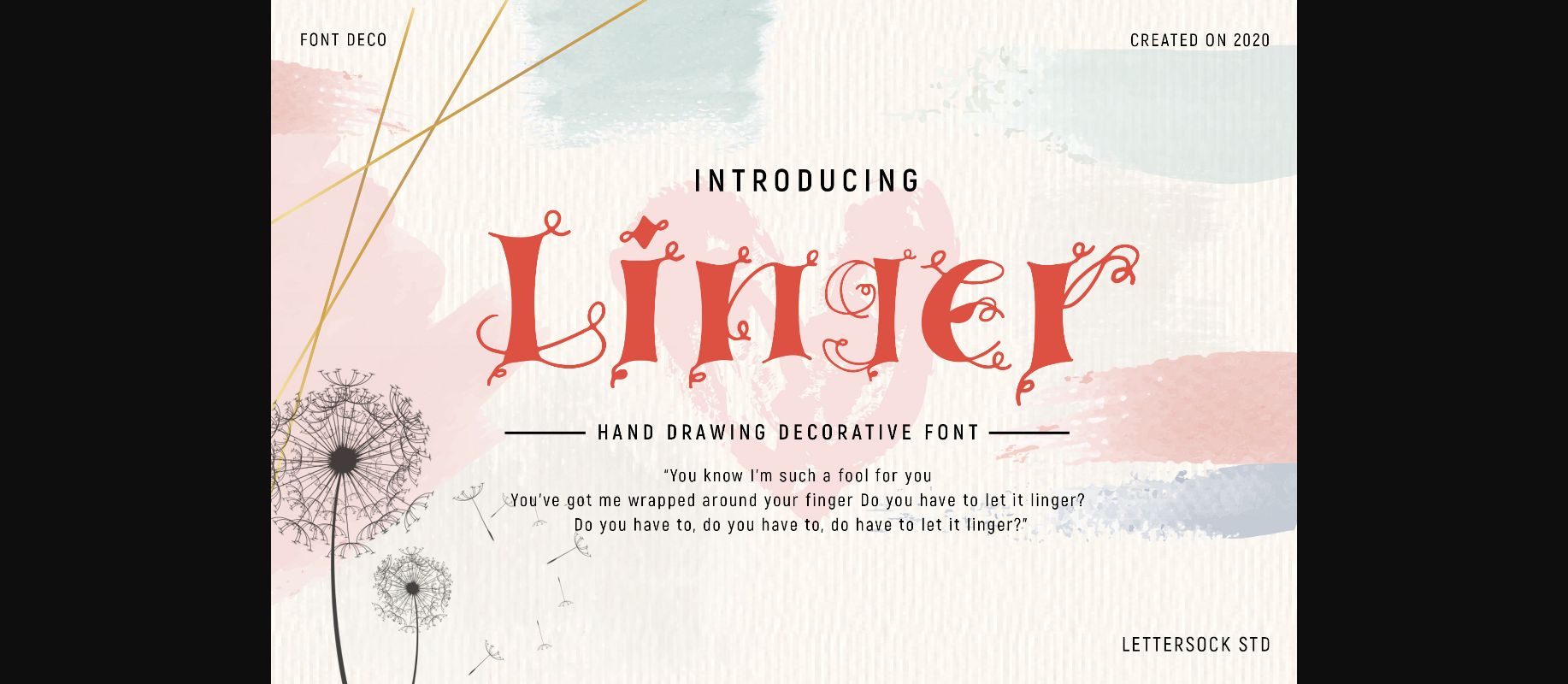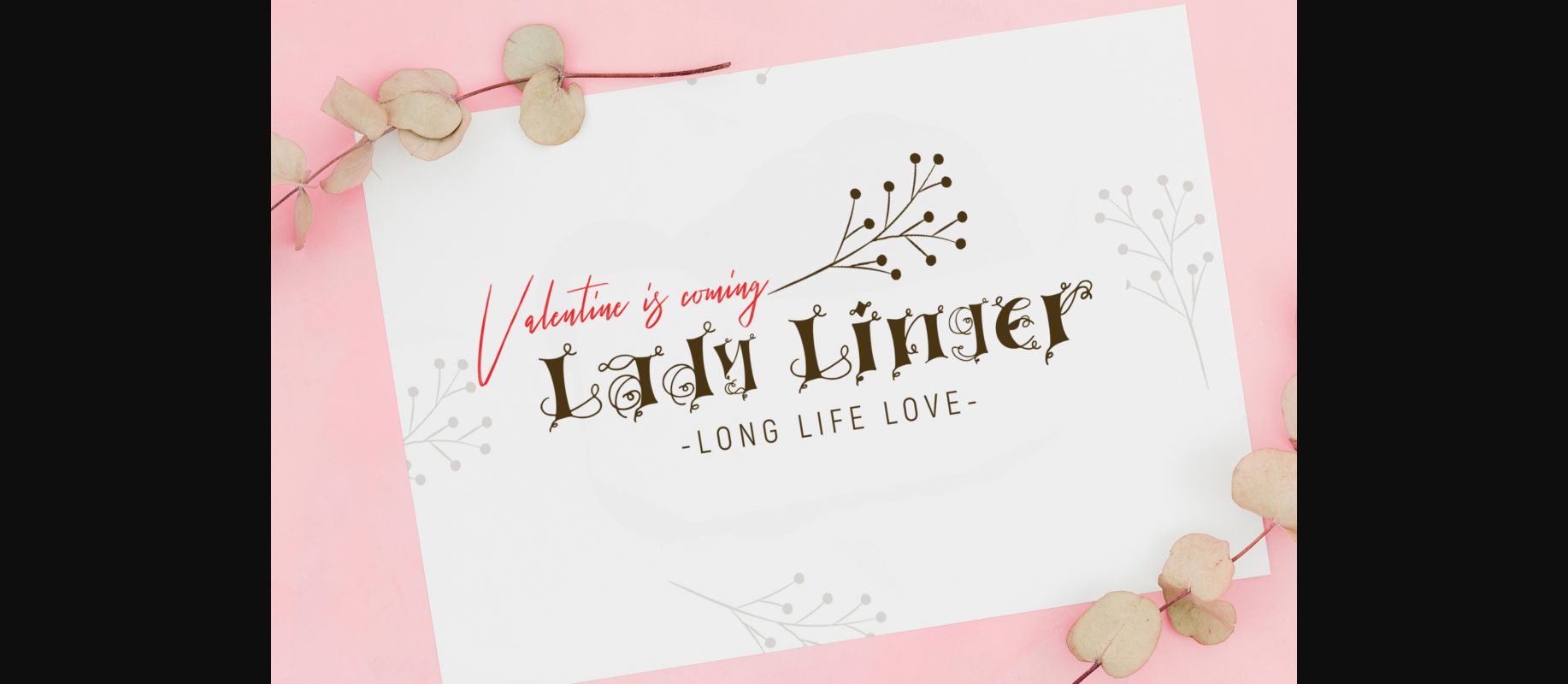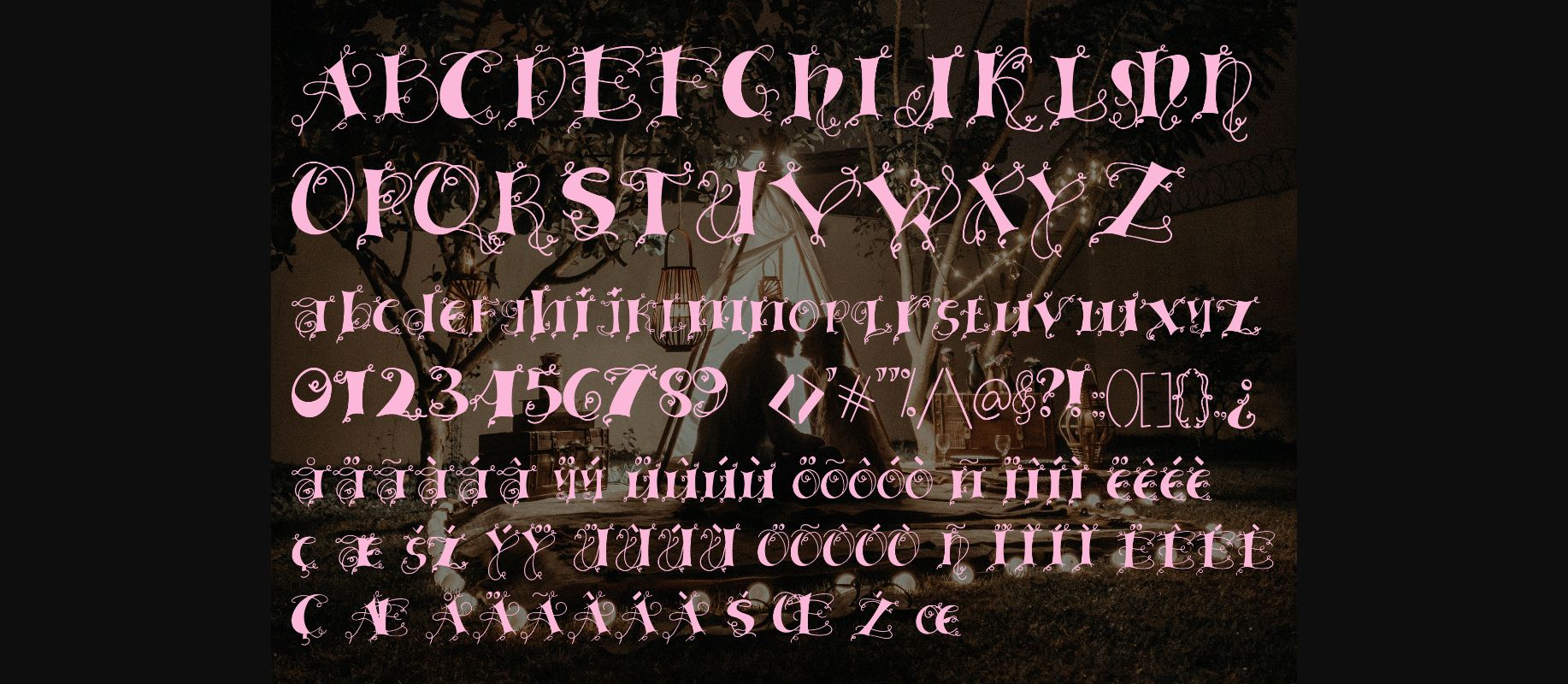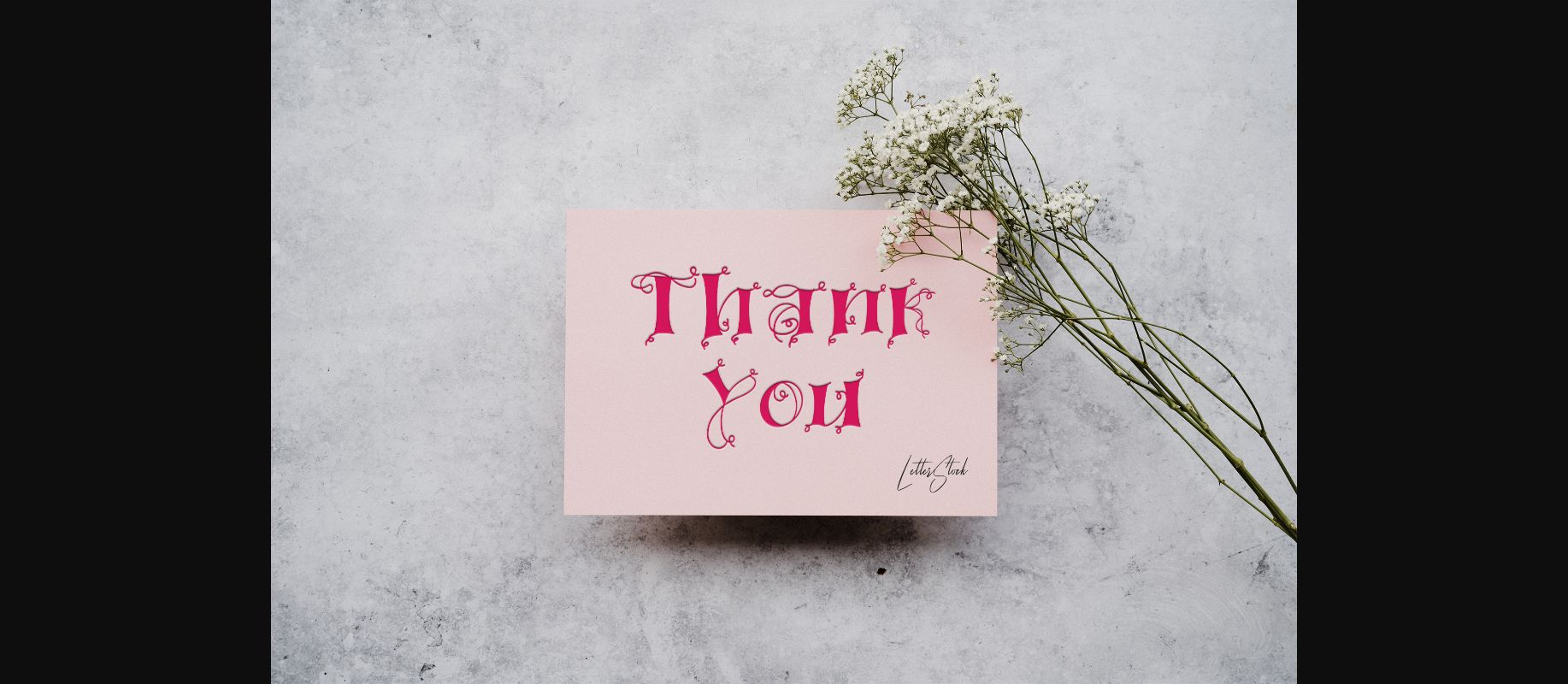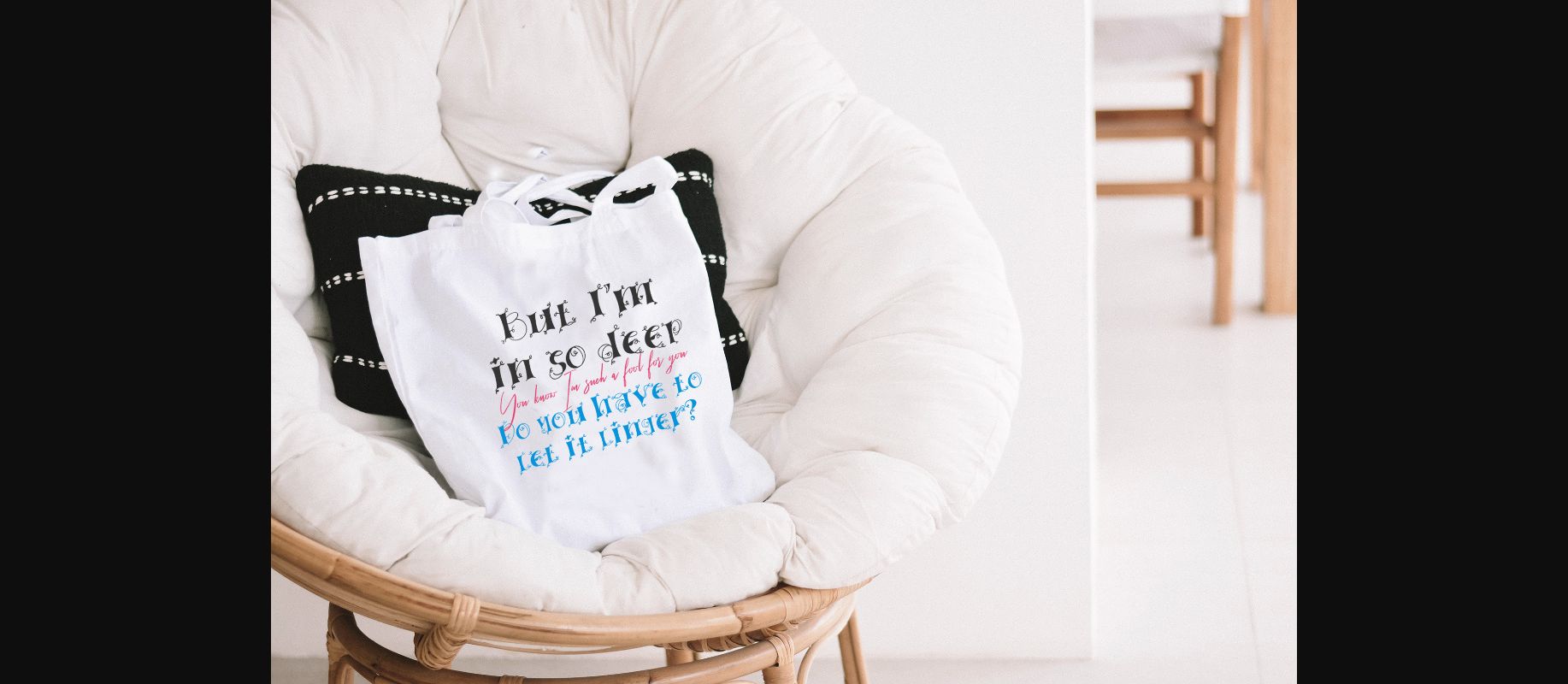
Linger Font
About Linger Font
Linger is a thin and playful decorative font featuring cute botanical elements. It will make a great font for any Valentine’s Day or wedding project!